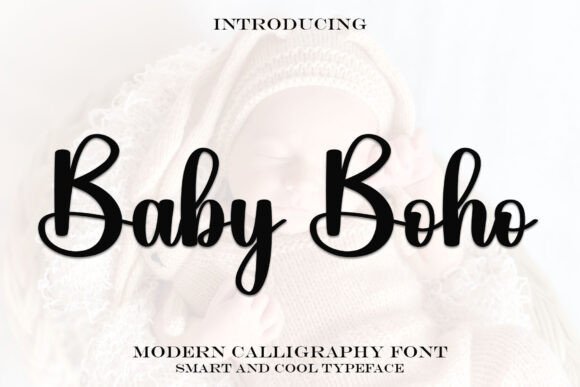
The Perfect Font for a Whimsical Touch
Have you ever sat at your desk, staring at a blank screen, searching for the perfect font to bring your design to life? You know, that elusive feeling when you just can’t quite capture the essence of your vision? That’s exactly what happened to me when I first discovered the Baby Boho Font.
This gorgeous, handwritten font is designed to add a touch of whimsy and romance to any project. Whether you’re working on a branding campaign, a wedding invitation, or a fashion lookbook, the Baby Boho Font is sure to impress. Its gentle curves and playful flair make it the perfect addition to any design. And the best part? It’s surprisingly versatile, making it a valuable asset for designers of all levels.
Baby Boho Font Key Features
- Unique Characteristics: Whimsical, handwritten, and elegant script font with a touch of bohemian charm, perfect for creating a romantic and vintage atmosphere.
- Font Style: Includes regular, bold, italic, and bold-italic styles, offering versatility in design and layout.
Baby Boho Font Review
I recently had the chance to work with the Baby Boho Font and I must say it’s a charming addition to any design project. ✨ Here are some things that worked well for me:
- Unique and whimsical feel – The font’s bohemian vibe adds a touch of personality to any text.
- Legibility – Despite its decorative nature, the font remains easy to read, even at smaller font sizes.
- Customization options – The font comes with various styles and ligatures, allowing for a high degree of customization.
- Limited font weights – The font only comes in a few weights, which may not be ideal for projects requiring a wide range of font weights.
- Not ideal for body text – While the font is great for headings and titles, it may not be the best choice for large blocks of body text.
Overall, I think the Baby Boho Font is a great addition to any designer’s toolkit. It’s perfect for projects that require a touch of whimsy and personality. Just be aware of its limitations and use it accordingly.
The Baby Boho Font is ideal for:
– Baby shower decorations and invitations
– Vintage-inspired designs and branding
– Whimsical and feminine designs in general